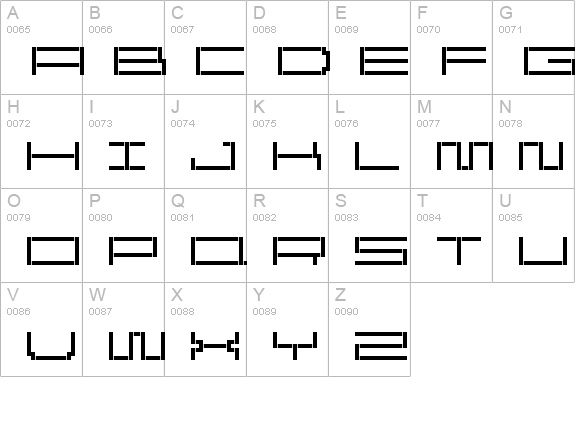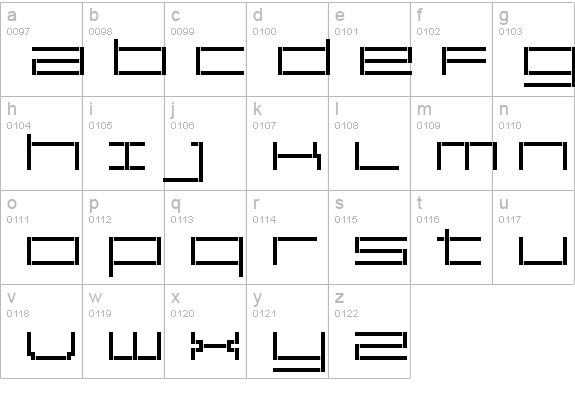
ReversionBroken Font Details
ReversionBroken font is a captivating and edgy typeface that will add a touch of rebellion to any design project. Its intricate and distorted letterforms exude a sense of broken beauty, making it perfect for creating eye-catching headlines, posters, and album covers. This unique font showcases a blend of sharp angles and distressed lines, creating a visually striking aesthetic that is sure to captivate your audience. Each character is meticulously crafted to maintain its legibility, even with its broken appearance, ensuring that your message will be conveyed with clarity and style. What sets ReversionBroken font apart is not only its bold and unconventional design, but also the fact that it is available for free. That's right, you can freely download this remarkable font at FontsMarket.com, making it accessible to designers and creatives from all walks of life. Whether you're working on a grunge-inspired project, a rebellious brand identity, or simply want to add a touch of artistic flair to your designs, ReversionBroken font is the perfect choice. Its versatility and distinctiveness make it a powerful tool that will elevate your work to new heights. So why wait? Take advantage of this amazing opportunity to enhance your typography arsenal with ReversionBroken font. Download it for free at FontsMarket.com and unleash your creativity like never before.